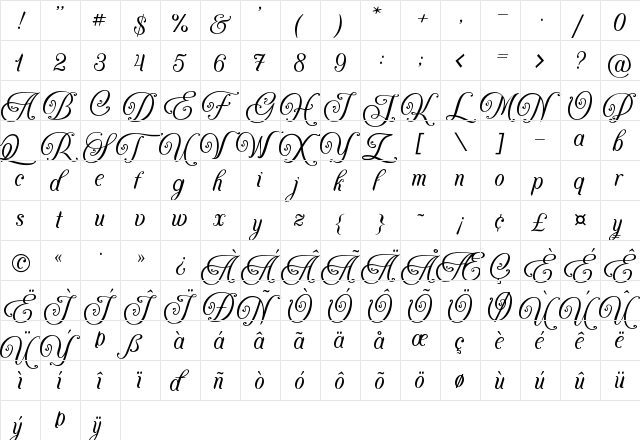
Agenda King Regular
| Designer | Virgiawan Listanto |
Design Context for Agenda King Typeface
Agenda King is a composed and adaptable typeface that performs quietly and consistently across a wide range of design contexts.